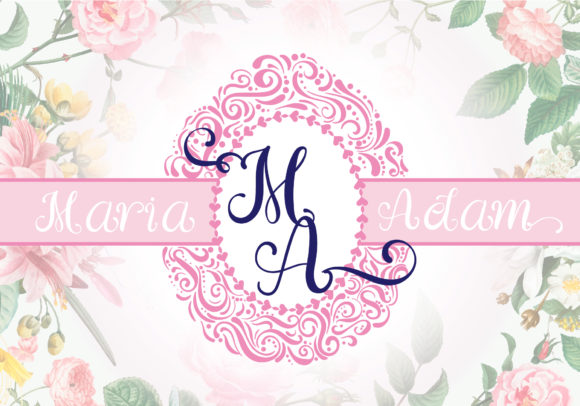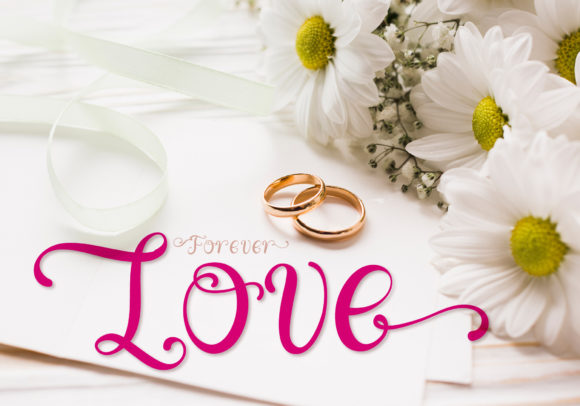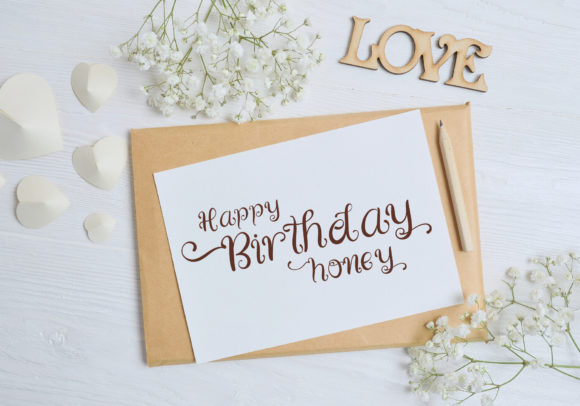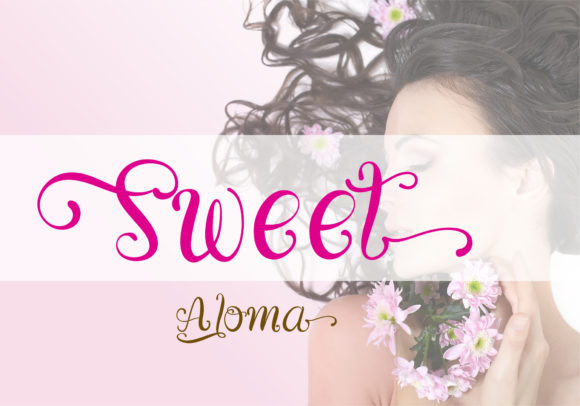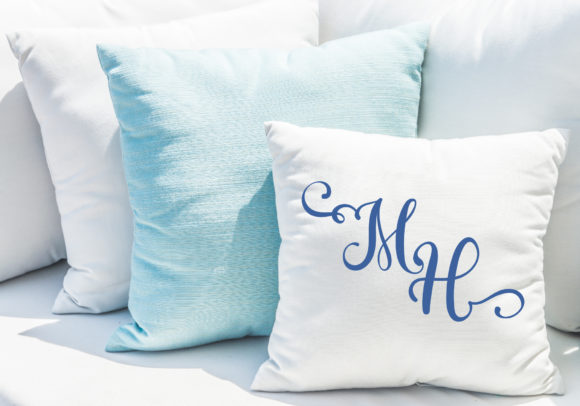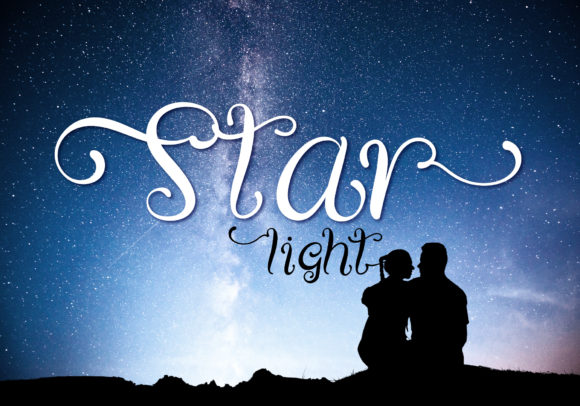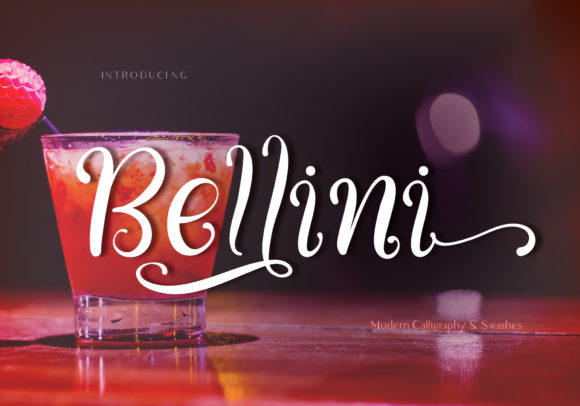
Bellini Font: The Ultimate Choice for Romantic and Personalized Designs
Are you looking for a font that exudes romance, elegance, and sweetness? Look no further than the Bellini font! This stunning calligraphy typeface is perfect for designers and crafters who want to add a touch of sophistication and whimsy to their designs. In this article, we’ll dive into the world of Bellini font, exploring its features, uses, and benefits.
What is Bellini Font?
Bellini is a romantic and sweet calligraphy typeface that boasts characters that dance along the baseline. Its flowing lines and curves create a sense of movement and fluidity, making it perfect for designs that require a personalized touch. Whether you’re working on wedding invitations, thank you cards, weddings, greeting cards, logos, or any other project that demands a unique and elegant style, Bellini font is the perfect choice.
Key Features of Bellini Font
- Romantic and Sweet: Bellini font is designed to evoke feelings of love, romance, and sweetness. Its elegant lines and curves make it perfect for designs that require a touch of sophistication.
- Versatile: Bellini font is versatile and can be used on a variety of designs, including wedding invitations, thank you cards, weddings, greeting cards, logos, and more.
- Easy to Use: Bellini font is easy to use, even for those who are new to calligraphy fonts. Its intuitive design makes it simple to navigate and customize.
Uses of Bellini Font
Bellini font is perfect for a wide range of designs, including:
- Wedding Invitations: Add a touch of romance and elegance to your wedding invitations with Bellini font.
- Thank You Cards: Express your gratitude with beautifully designed thank you cards featuring Bellini font.
- Greeting Cards: Create stunning greeting cards for special occasions, such as birthdays, anniversaries, and holidays.
- Logos: Use Bellini font to create unique and elegant logos for your business or brand.
- Stationery: Add a touch of sophistication to your stationery with Bellini font.
Benefits of Using Bellini Font
Using Bellini font offers several benefits, including:
- Unique and Elegant Designs: Bellini font helps you create unique and elegant designs that stand out from the crowd.
- Customization: Bellini font offers a high level of customization, allowing you to tailor your designs to suit your needs.
- Professional Look: Bellini font gives your designs a professional look, making them perfect for business and personal use.
Tips for Using Bellini Font
Here are some tips for using Bellini font:
- Experiment with Different Sizes: Bellini font looks great in various sizes, so experiment with different sizes to find the one that works best for your design.
- Pair with Other Fonts: Pair Bellini font with other fonts to create a unique and interesting design.
- Use Swashes and Glyphs: Take advantage of Bellini font’s swashes and glyphs to add a touch of elegance and sophistication to your design.
In conclusion, Bellini font is a stunning calligraphy typeface that offers a unique and elegant way to add a touch of romance and sophistication to your designs. With its PUA encoding, versatility, and ease of use, Bellini font is perfect for designers and crafters who want to create beautiful and personalized designs. Whether you’re working on wedding invitations, thank you cards, logos, or any other project, Bellini font is the perfect choice.